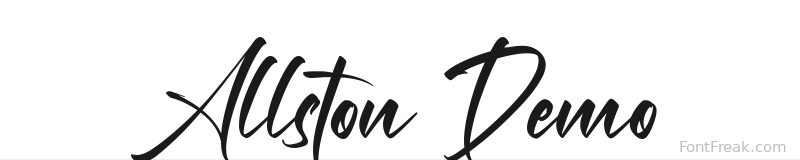
Allston Demo
Allston Demo is an elegant script font created by Noah Type, designed to bring a touch of sophistication and creativity to any project. This font falls into the category of handwritten scripts, characterized by its flowing strokes that mimic the natural movement of a pen. The visual aesthetics of Allston Demo feature varied stroke weights that create a charming contrast, lending an organic feel to the characters. The spacing is thoughtfully designed, allowing for legibility while maintaining a graceful appearance. The font's decorative elements, such as sweeping ascenders and playful loops, enhance its artistic flair, making it an ideal choice for a variety of creative applications.
Best suited for unique projects, Allston Demo shines in wedding invitations, where its romantic style can evoke heartfelt sentiments. It also works beautifully for movie posters, adding an element of intrigue and artistic expression. Restaurant menus can benefit from this font's inviting appearance, enticing diners with its charm. Additionally, content creators looking to elevate their branding can utilize Allston Demo in social media graphics or promotional materials, ensuring their visuals stand out in a crowded marketplace.
The target audience for Allston Demo includes graphic designers, small business owners, and content creators who seek to elevate their work with a distinctive touch. The font’s versatility allows it to adapt to a range of themes and styles, making it a valuable asset in any designer's toolkit.
In conclusion, Allston Demo font free download offers a unique blend of elegance and creativity that sets it apart from standard typefaces. With its artistic appeal and practical applications, it is a must-have for anyone looking to make a lasting impression through their design work.